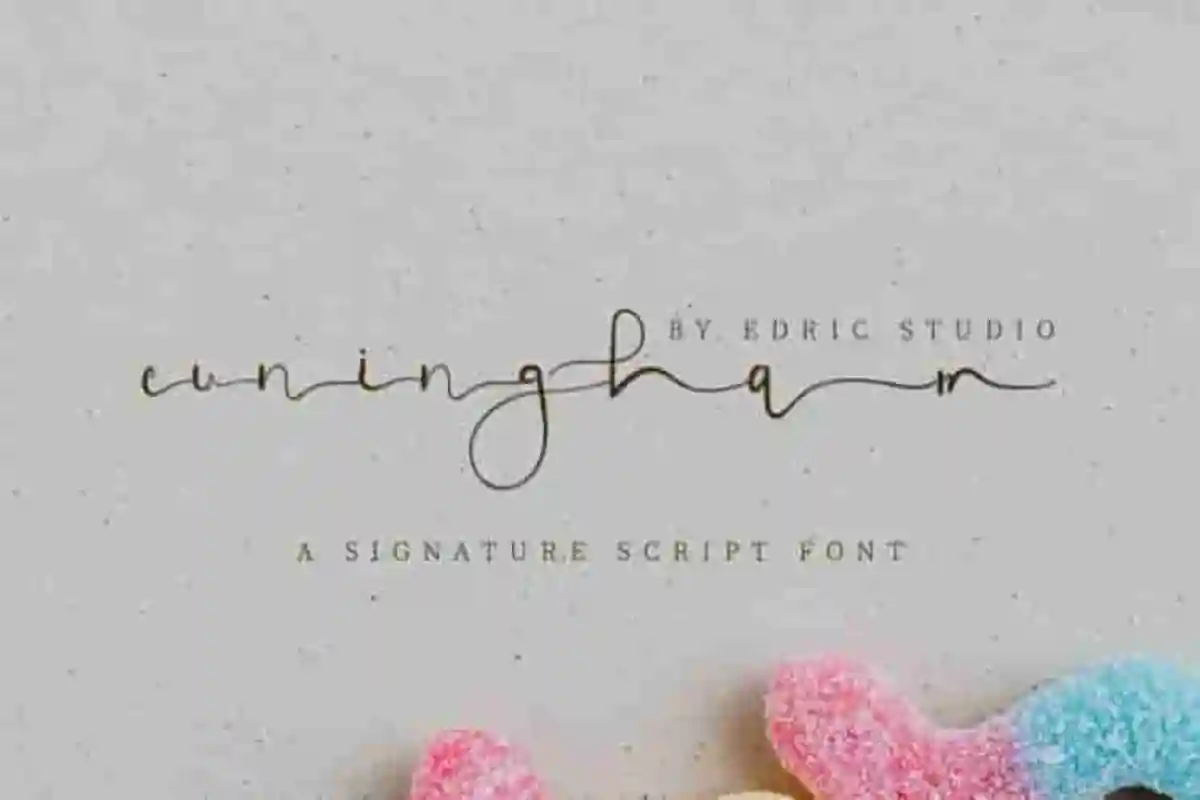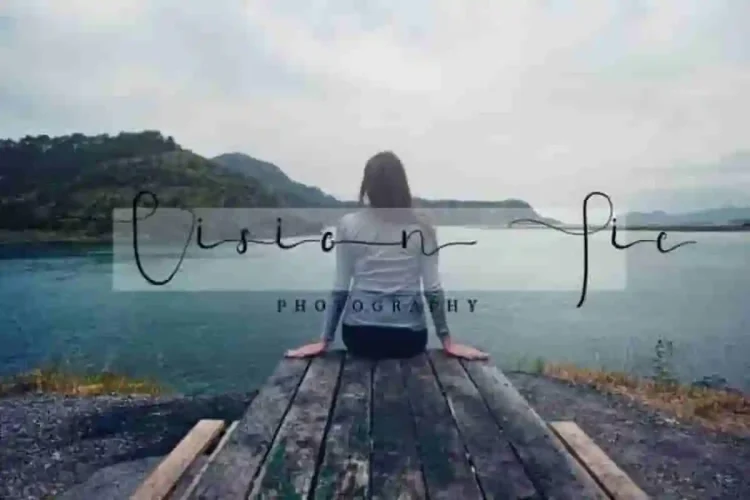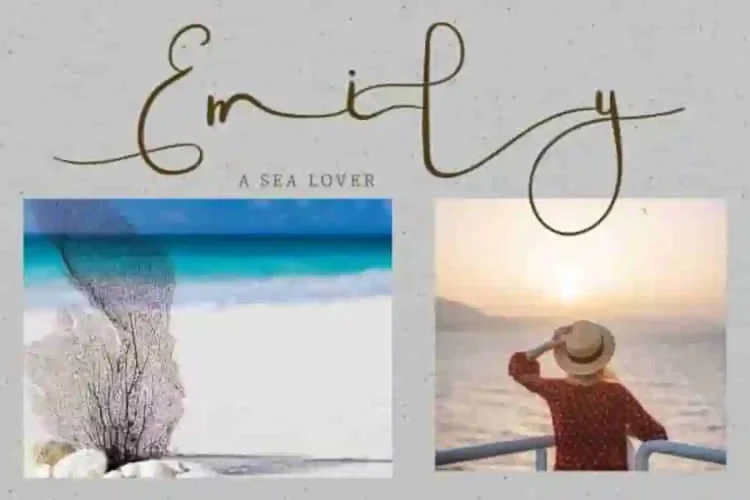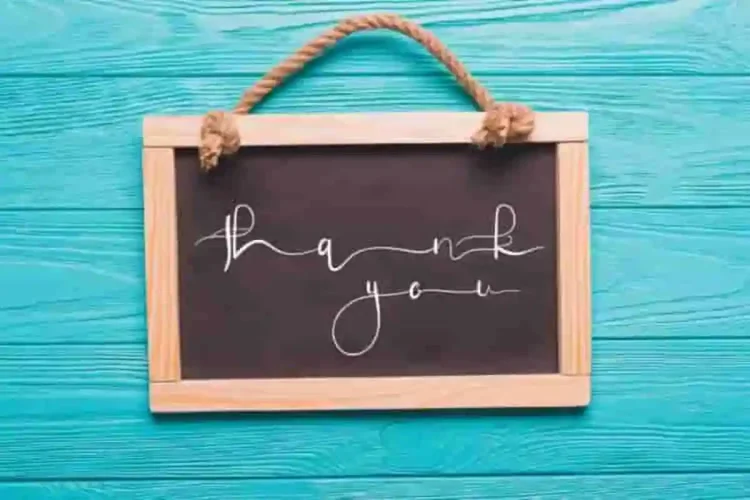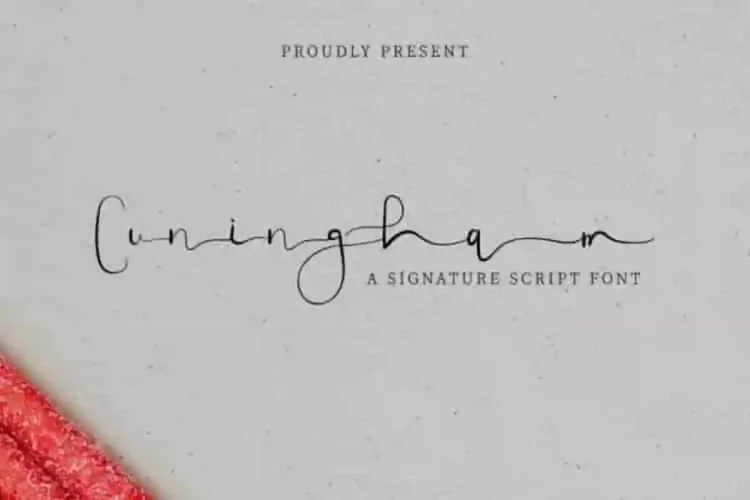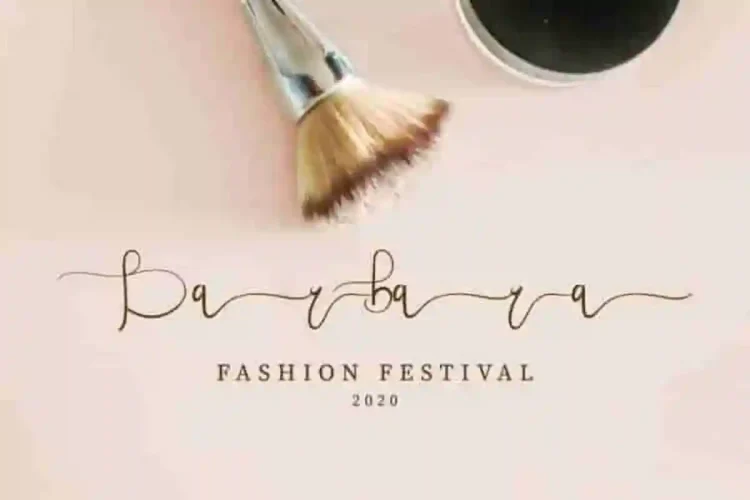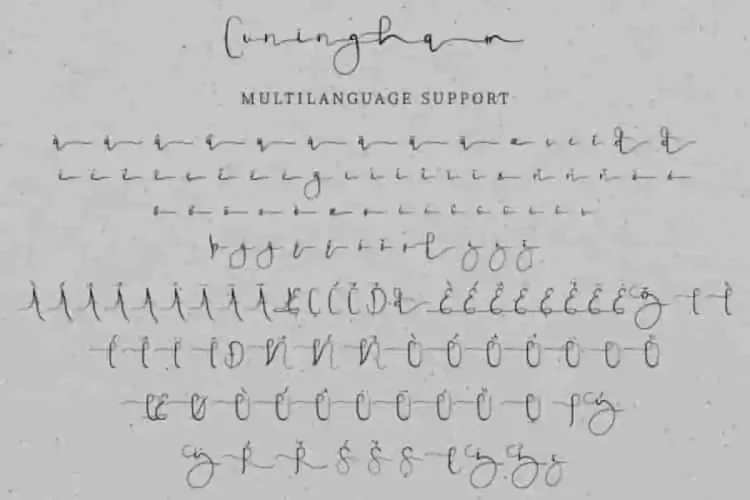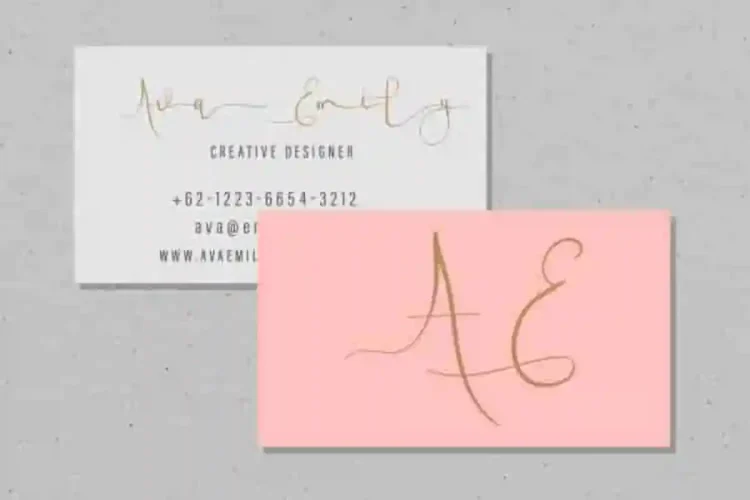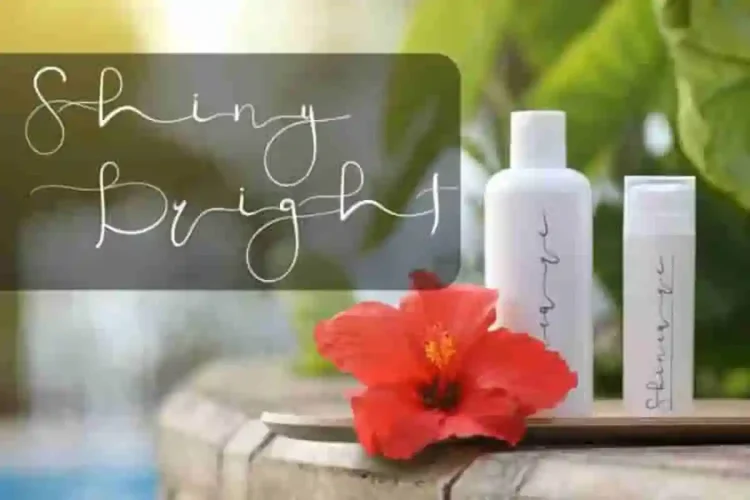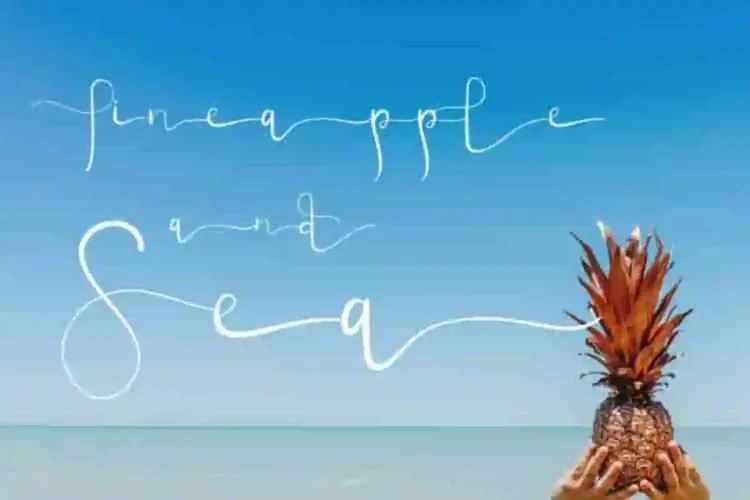
Cuningham Signature Script Font
Cuningham Font
The newest font from our lovely artist :  Cuningham Font
This is a Signature font, handcrafted from our Studio here in, Indonesia. The artists/designers of this beautiful tyeface is Saila and Suci.